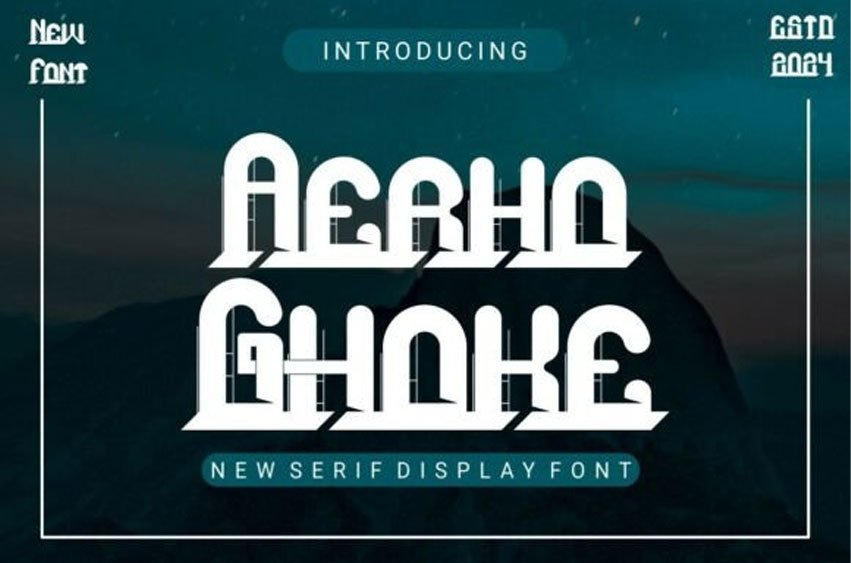
Aerho Ghoke Font
Aerho Ghoke Font Make a bold architectural statement with Aerho Ghoke, a new serif display font designed for high-impact visual storytelling.
This Aerho Ghoke typeface features unique, geometric structures and dramatic, sharp angles that create a sense of depth and modernity. Perfectly suited for cinematic posters, futuristic branding, and luxury editorial headlines, the Aerho Ghoke font commands attention with its uncompromising presence and innovative serif details.
The Aerho Ghoke typeface is the ultimate choice for designers looking to blend historical serif foundations with a cutting-edge, avant-garde aesthetic. Its robust character forms make it an excellent anchor for tech-focused logos or high-fashion magazine covers.
Pair the Aerho Ghoke font with minimalist layouts to let its complex, industrial geometry truly shine, providing a solid and sophisticated identity to any creative project.